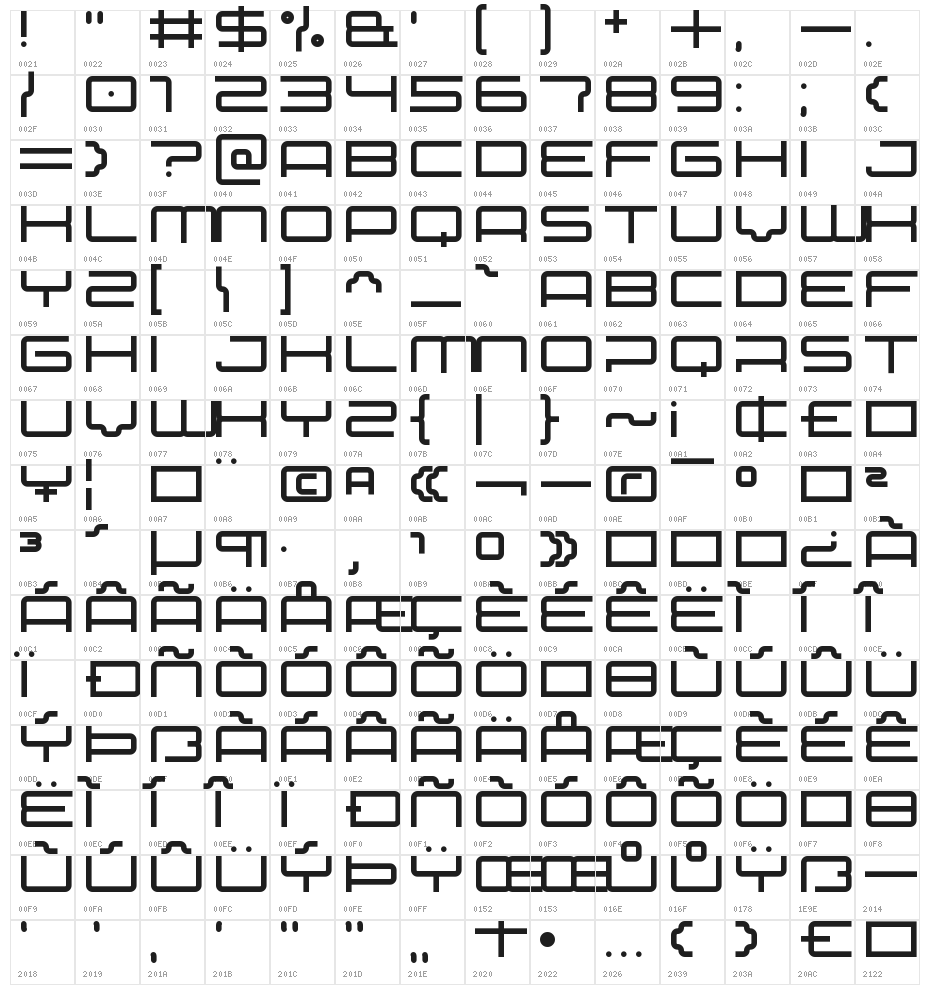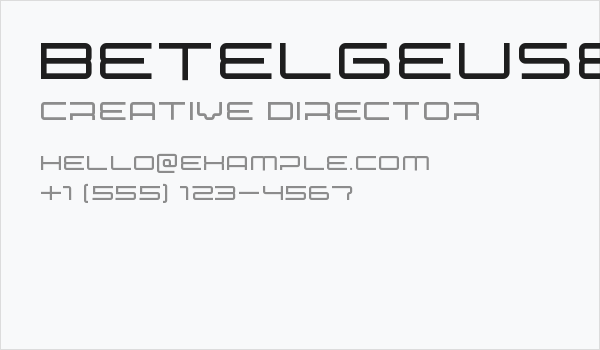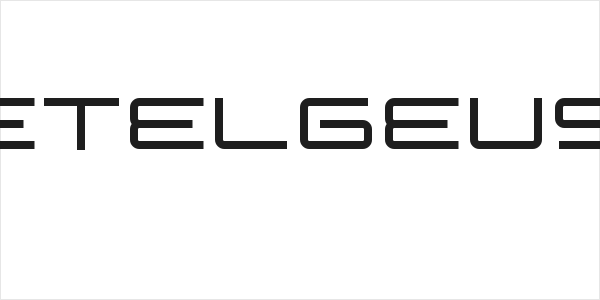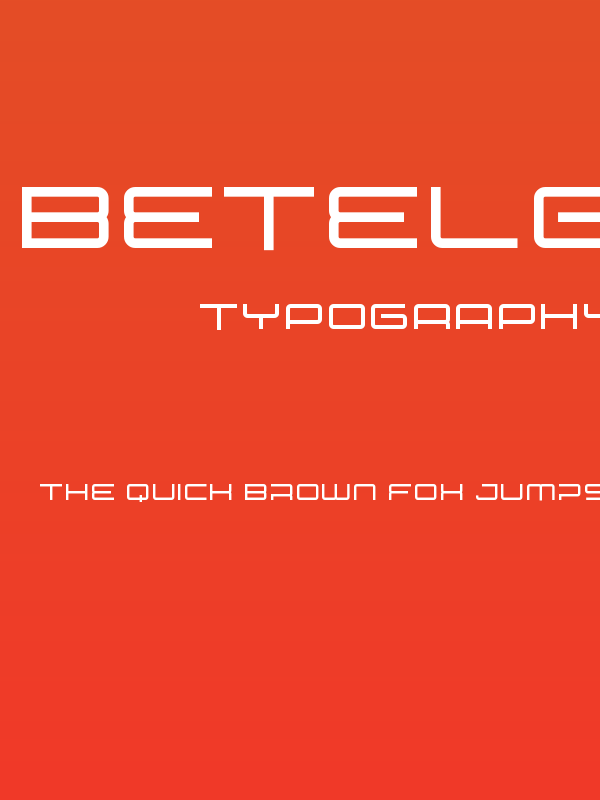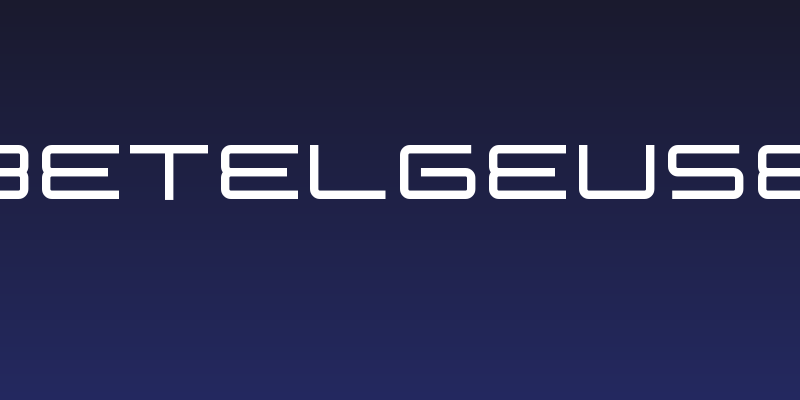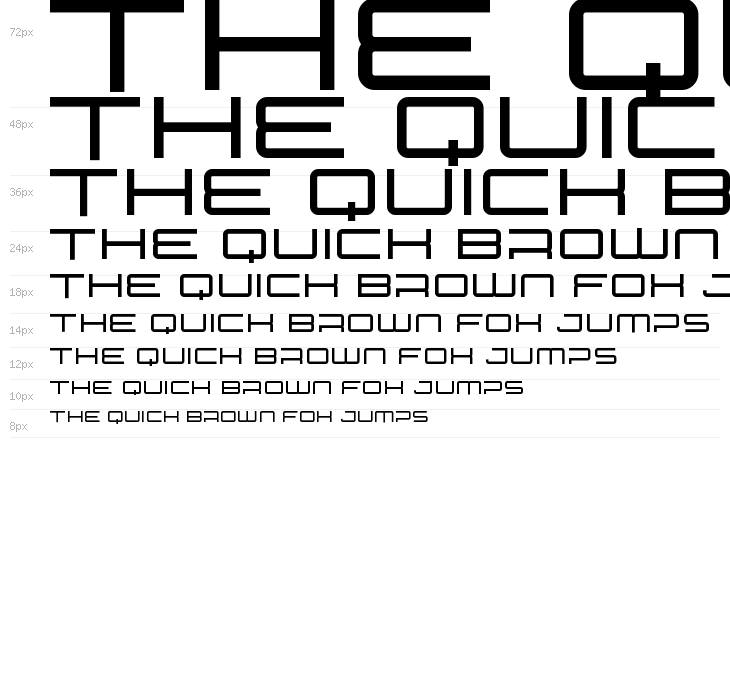
Betelgeuse Font
Betelgeuse Description
This font features a futuristic and geometric design, characterized by its clean lines and squared-off edges. The uppercase and lowercase letters maintain a consistent height, giving it a uniform appearance. The numerals and special characters follow the same design principles, ensuring a cohesive look across all glyphs. The font's structure is minimalistic, with a focus on clarity and readability, making it suitable for modern digital applications. Its unique style is both eye-catching and functional, ideal for projects that require a contemporary and tech-savvy aesthetic.
Overall StyleFuturistic
Use CaseLogos, Headlines, Digital Interfaces
Proposed ProjectsIdeal for tech branding, digital interfaces, video game design, and sci-fi themed projects.